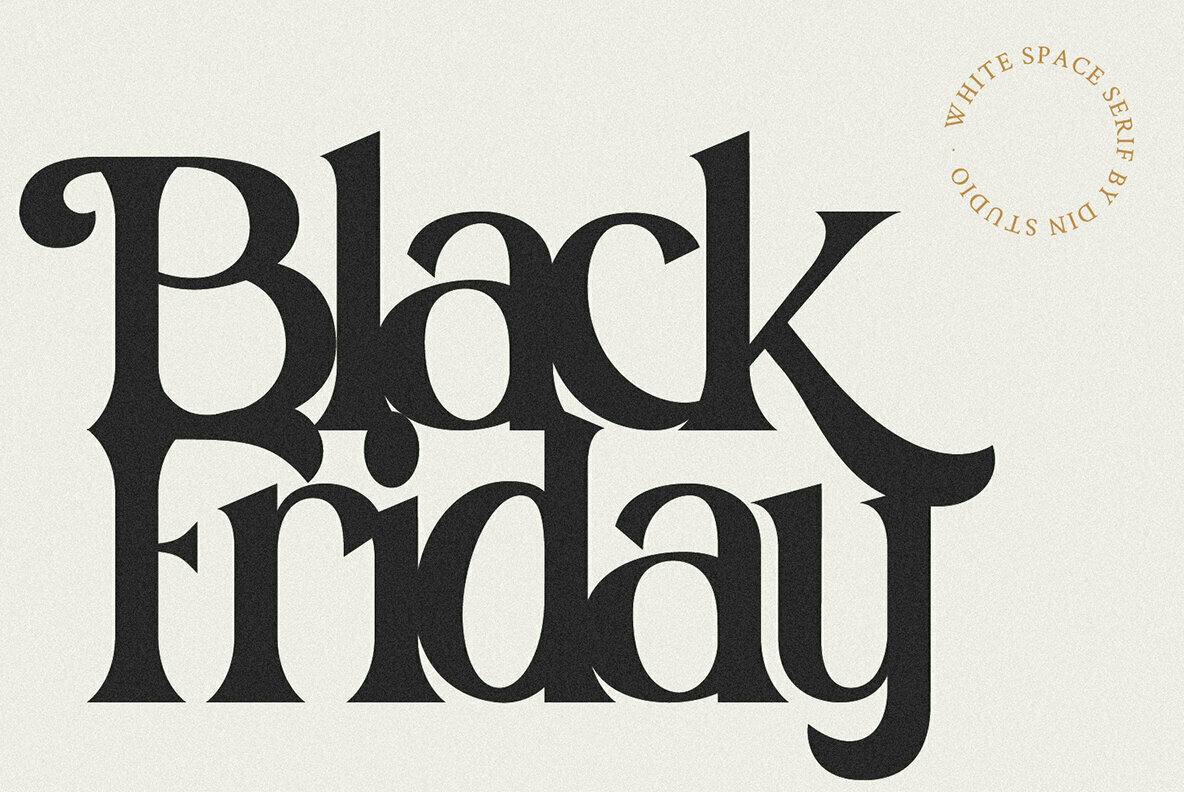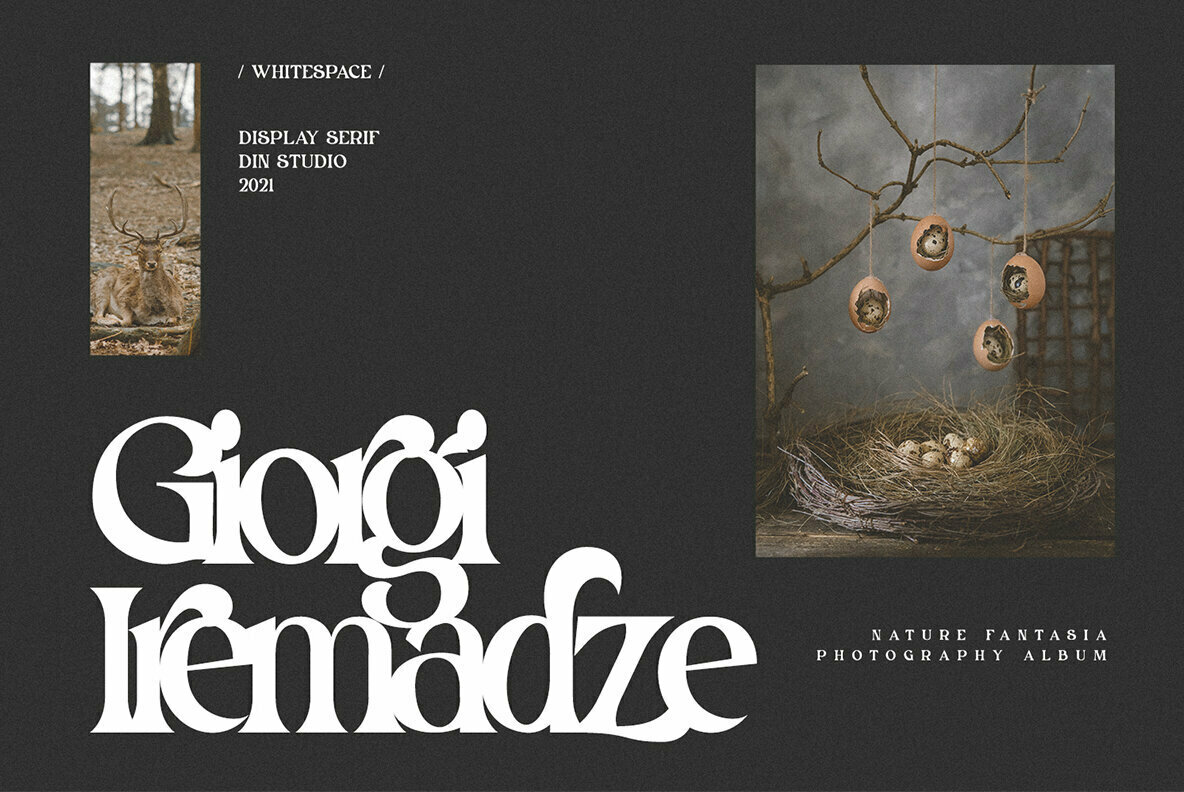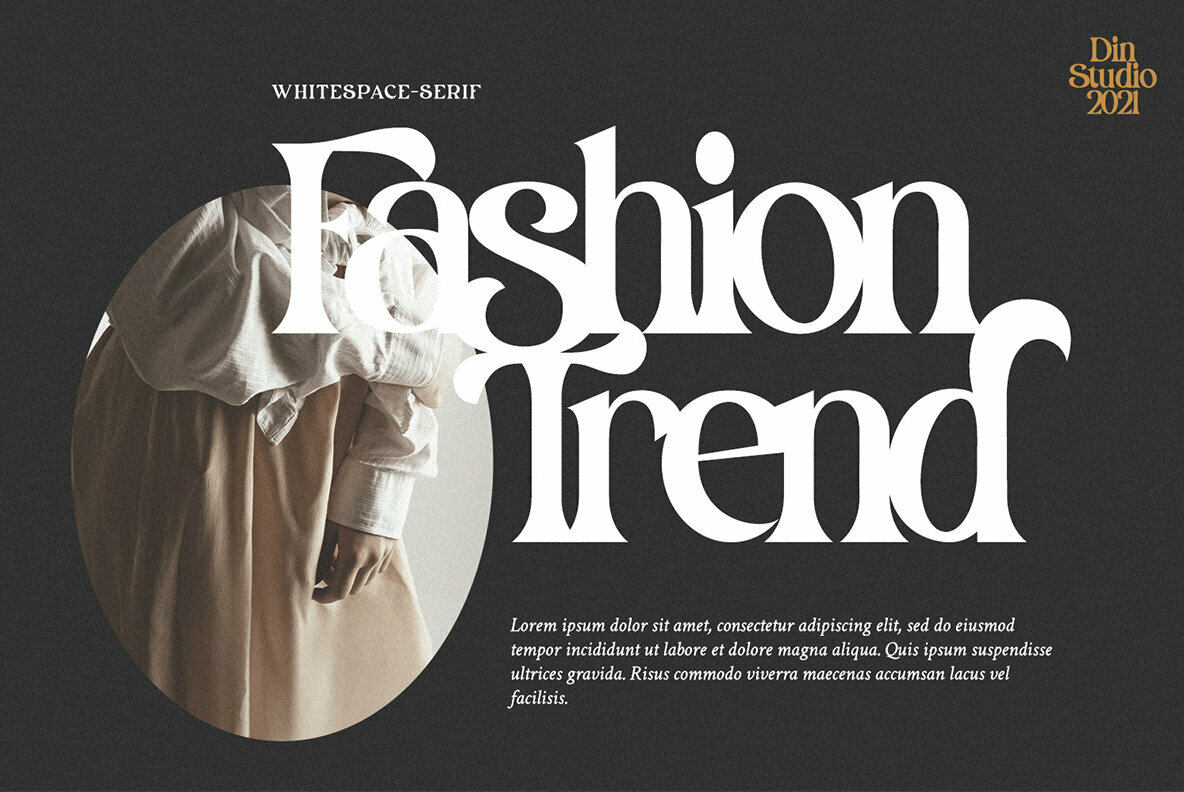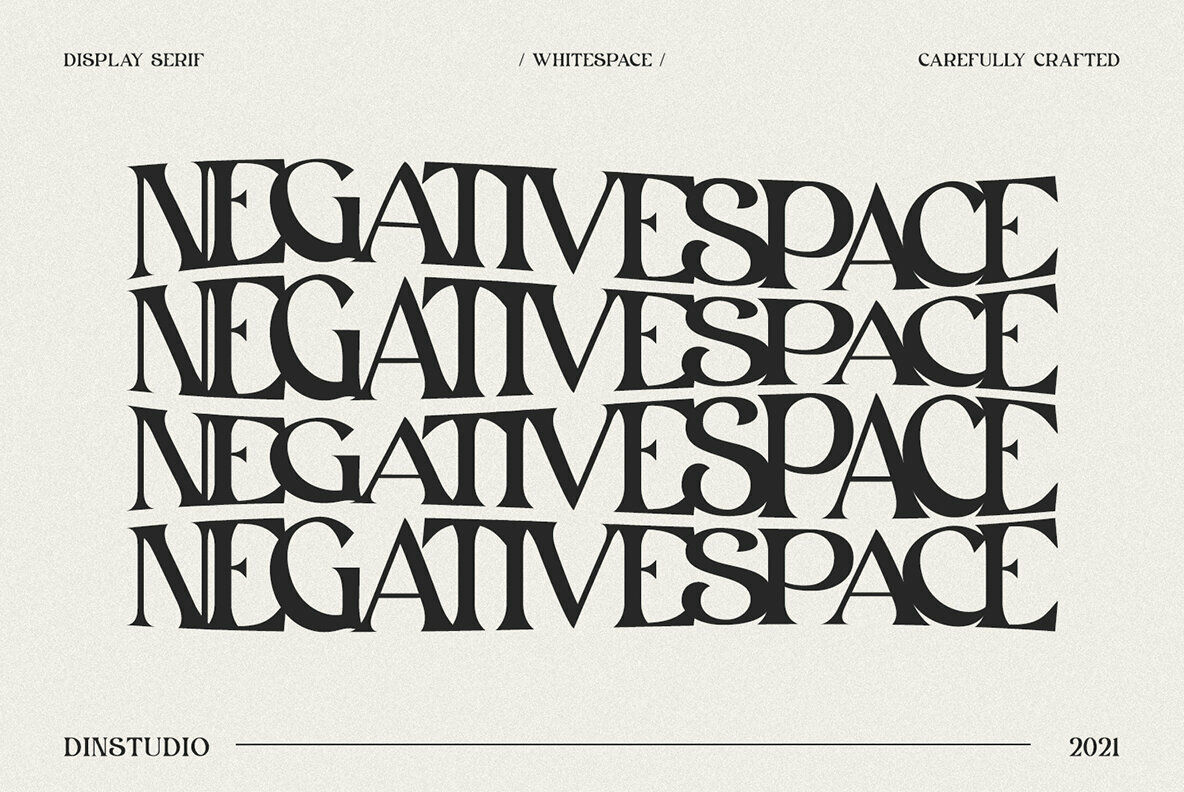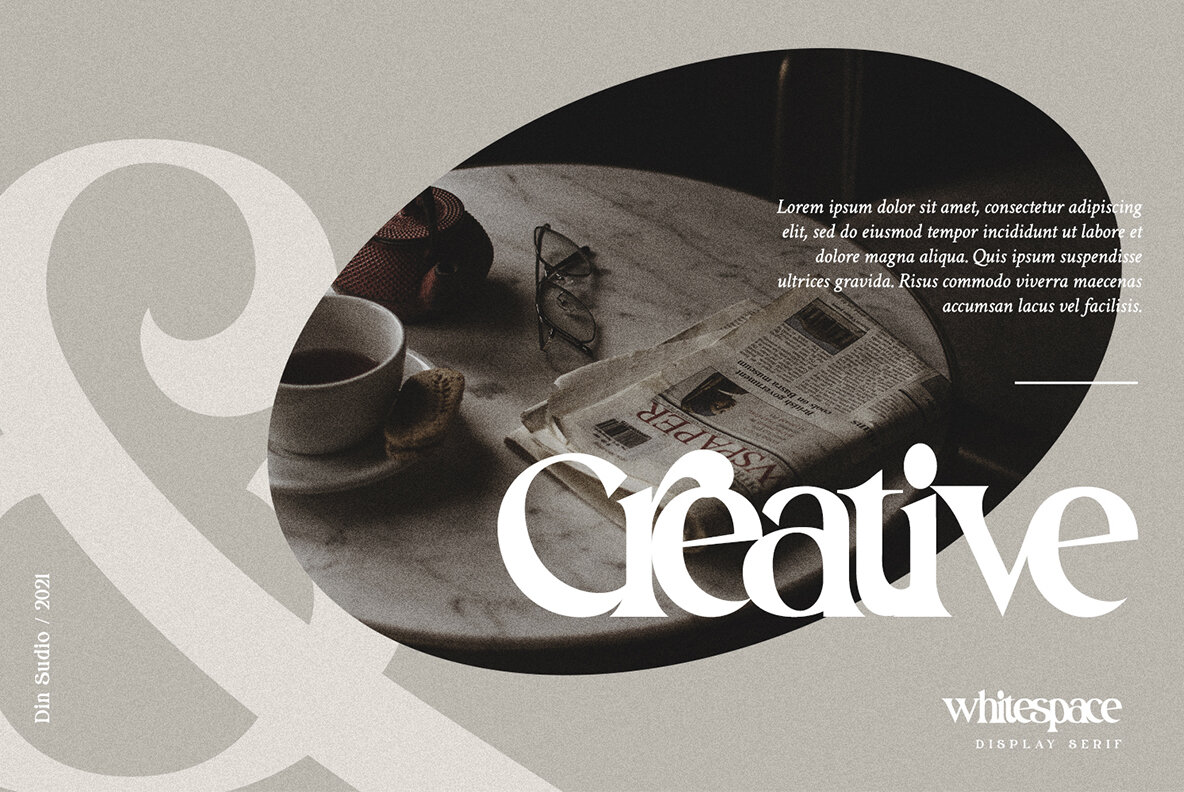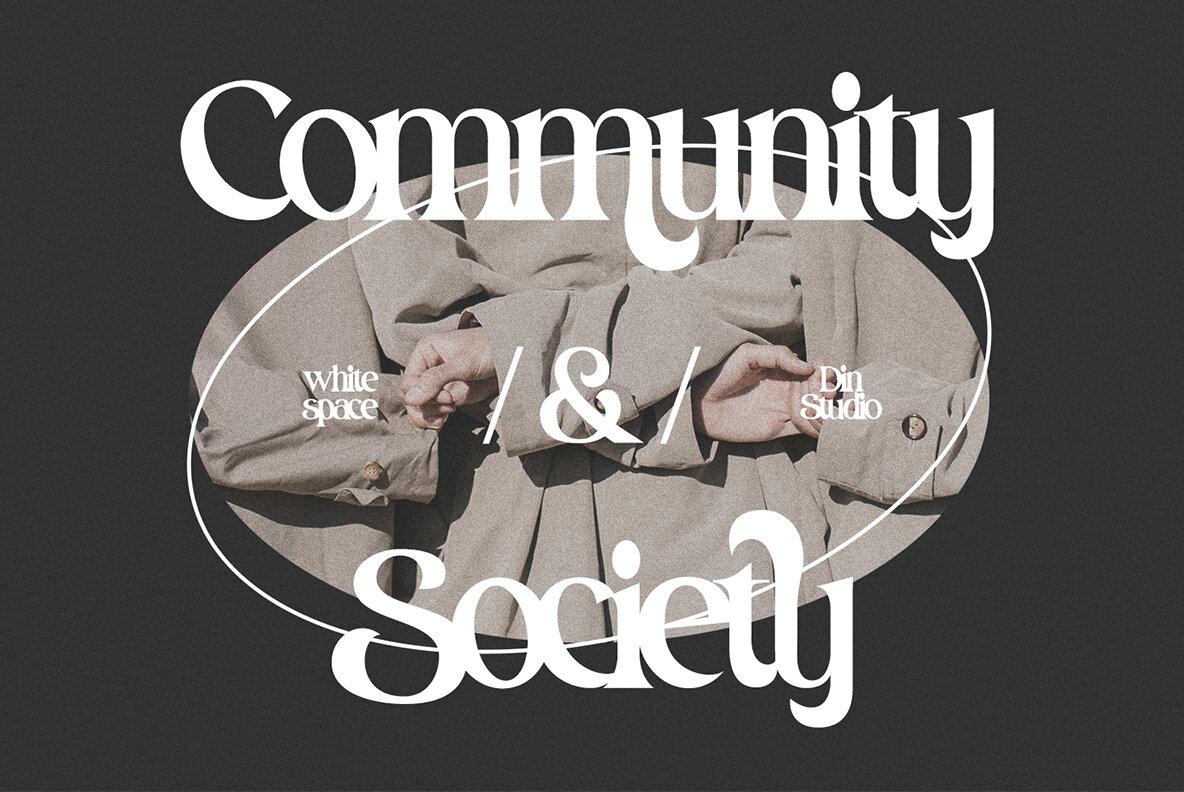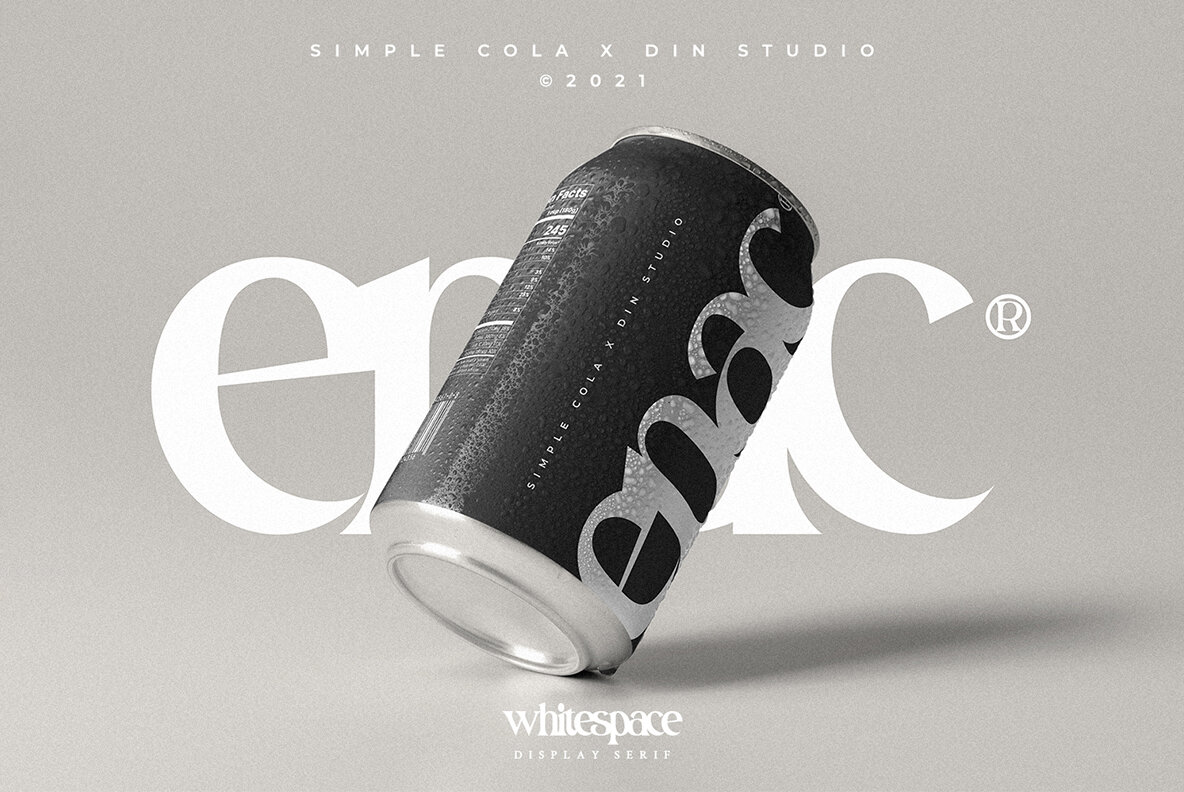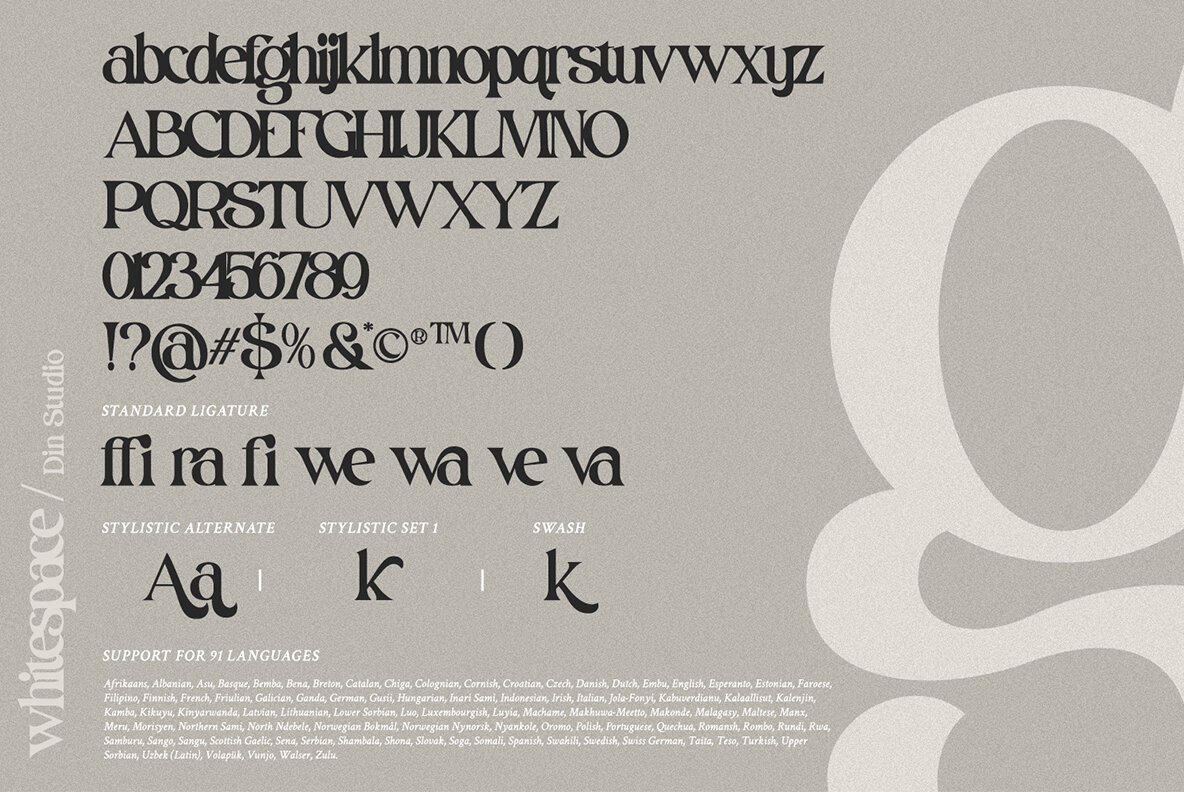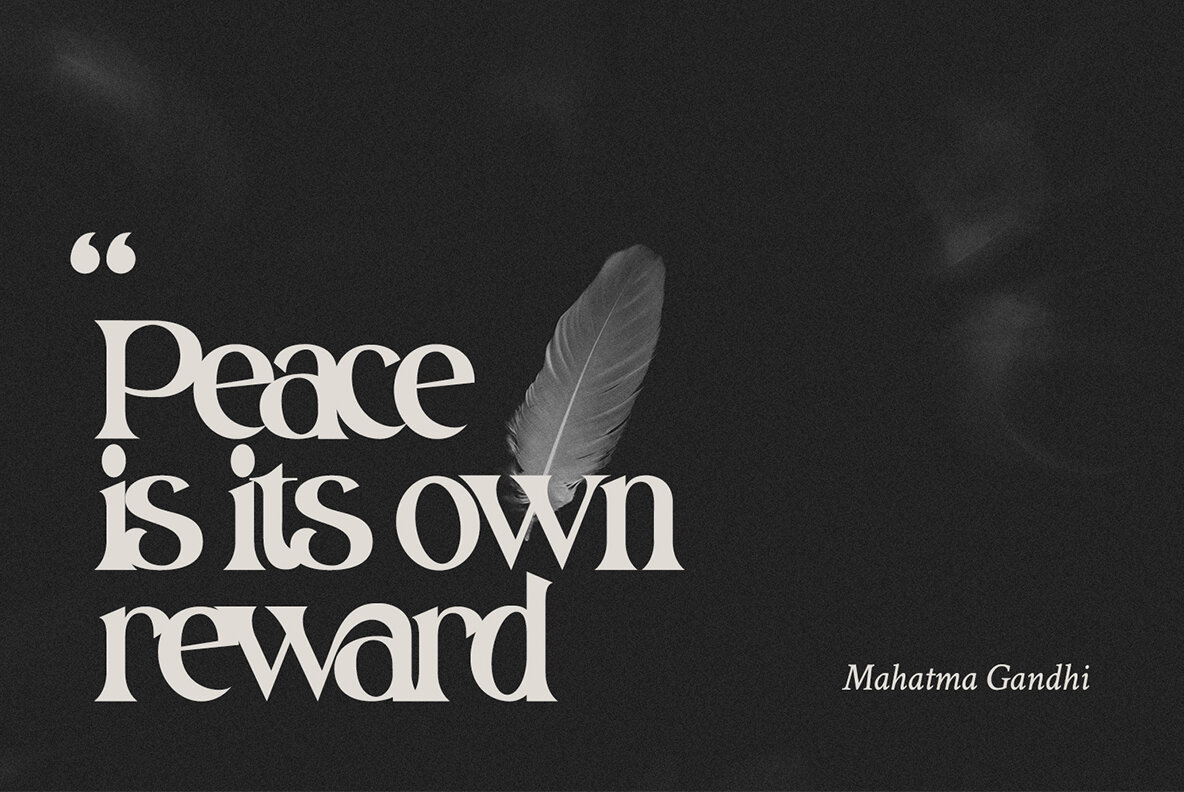
White Space Font
White Space Regular
White Space - A Display Serif Font.
This gorgeous, stylish and modern font can be used for a host of different content needs and projects. Ideal for social media banners; posts, and ads, printed quotes, t-shirt designs, packaging, or even as a modern text overlay to any background image.
Our font always includes Multilingual option to make your branding globally accepted.
- Standard Ligatures
- Alternate
- Stylistic Set
- Swash
- Multilingual Support (91 languages)
- Numerals and Punctuation